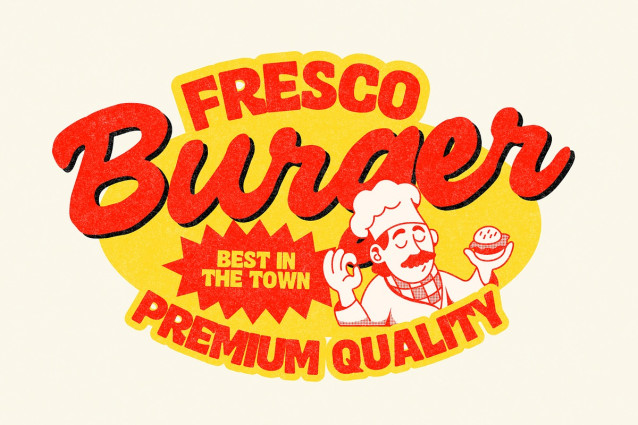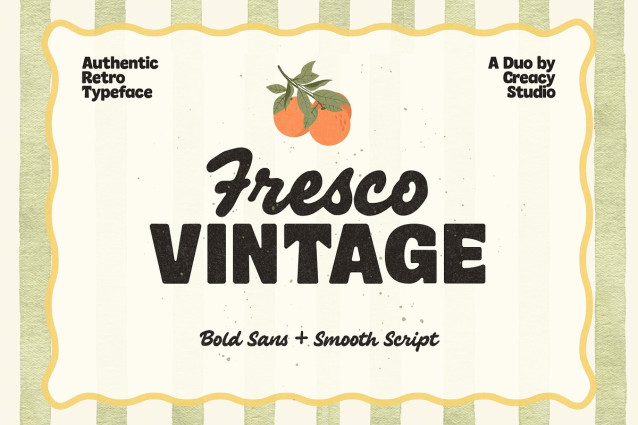
Fresco Vintage Font Duo
Fresco Vintage Font Duo is a bold sans + smooth script font duo designed by Creacy Studio. Inspired by vintage grocery store signs, seaside cafes, and mid-century food advertisements, Fresco Vintage combines playful letterforms with bold sans, creating an authentic retro style.